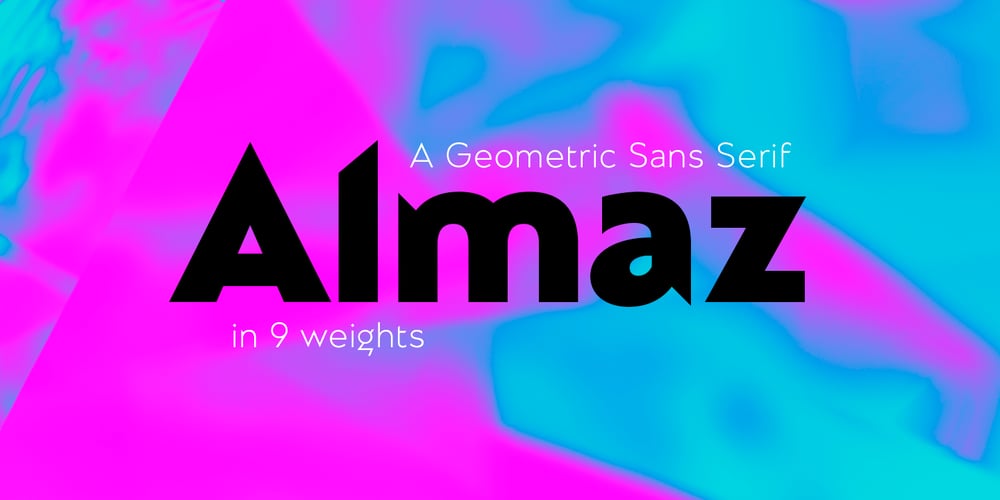
Almaz
Almaz font
Almaz Font Family was designed by Kyrylo Tkachov, Serhii Makarenko and published by AlfaBravo. Almaz contains 9 styles and family package options. Almaz is a modern geometric grotesque inspired by the Ukrainian modernism of the last century. It has a dynamic shape of characters and an avant-garde nature. Almaz is designed for logos, titles, book covers, and branding identity. You can also use it for small text fragments.